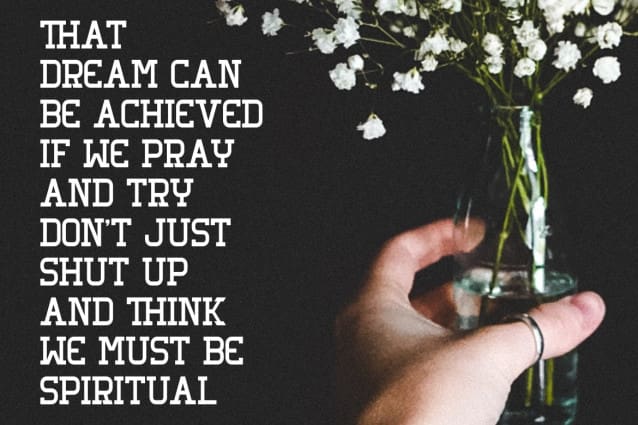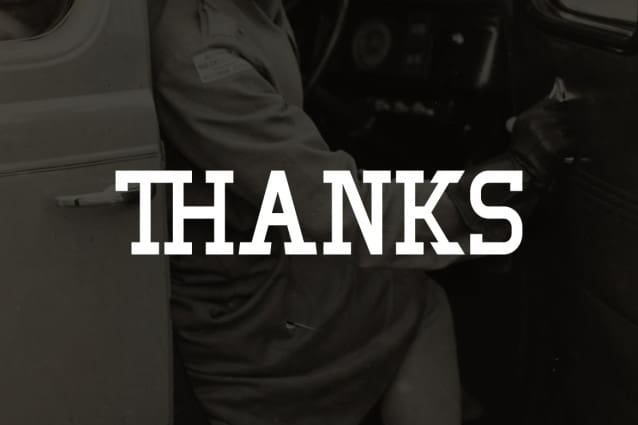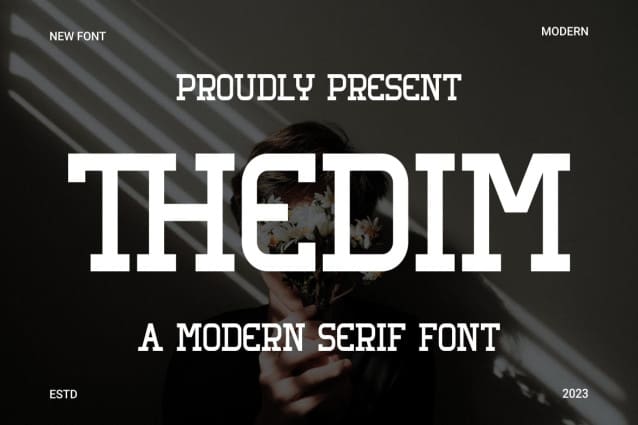
Thedim Font
Thedim Font is a modern and simple font ideal for displaying headlines, logos, brands, magazines, product packaging and invitations. They feature clean lines and gentle curves that add extra flair to any project. a touch of class.